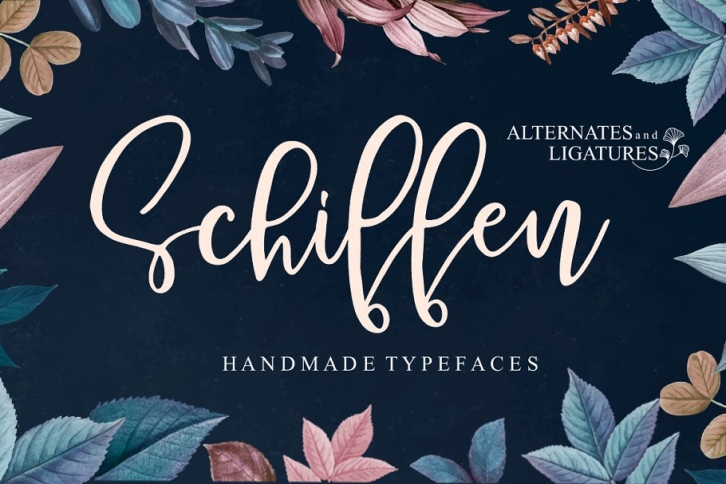
Schiffen Font Duo is a hand brush font made with brushes and ink. This typeface is ideal for use in thick watercolor designs or handwriting styles, such as blog titles, posters, wedding elements, t-shirts, clothing, book covers, business cards, greeting cards, branding, merchandise etc.
Contains full set:
Uppercase
Lowercase
alternative
Ligatures
Punctuation
number
multilingual support.
And also Schiffen sans, works in harmony with Schiffen's scripts to create exceptional typographic creations. Get inspiration from the preview above.
Contains full set:
Uppercase,
Lowercase,
Punctuation,
number,
multilingual support.